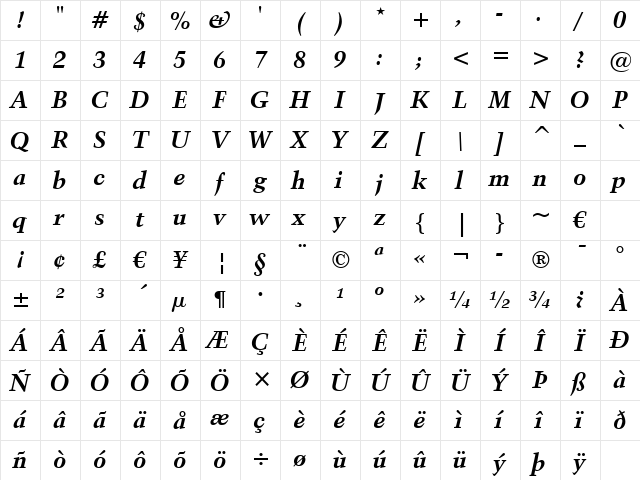
Kuenst480 BT Bold Italic
Design Context for Kuenst480 BT
Kuenst480 BT is a composed and adaptable typeface that performs quietly and consistently across a wide range of design contexts. The slanted form adds forward momentum and visual energy. Its bold stroke weight gives it real presence on the page.
Pro Tip: Use Kuenst480 BT for emphasis, pull quotes, and subheadings where its slanted energy can add rhythm to the layout.